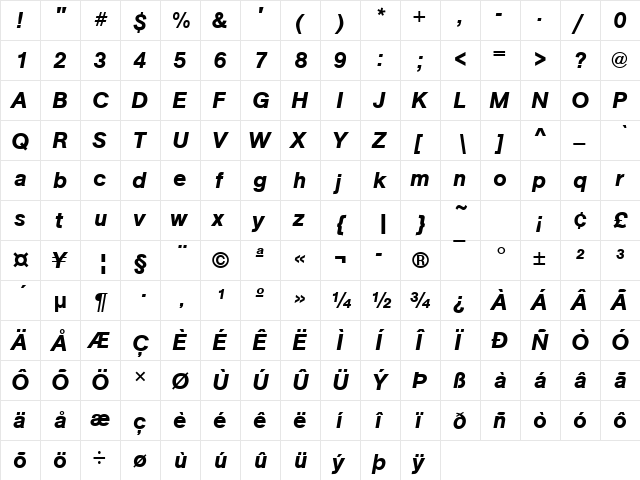
URWAccidaliaBucTMed Italic
Design Context for URWAccidaliaBucTMed Typeface
URWAccidaliaBucTMed offers clean, dependable letterforms without strong stylistic allegiance, making it a practical choice for designers who need flexibility. The dynamic lean of this cut emphasises speed and emphasis in any layout.
Pro Tip: Use URWAccidaliaBucTMed for emphasis, pull quotes, and subheadings where its slanted energy can add rhythm to the layout.